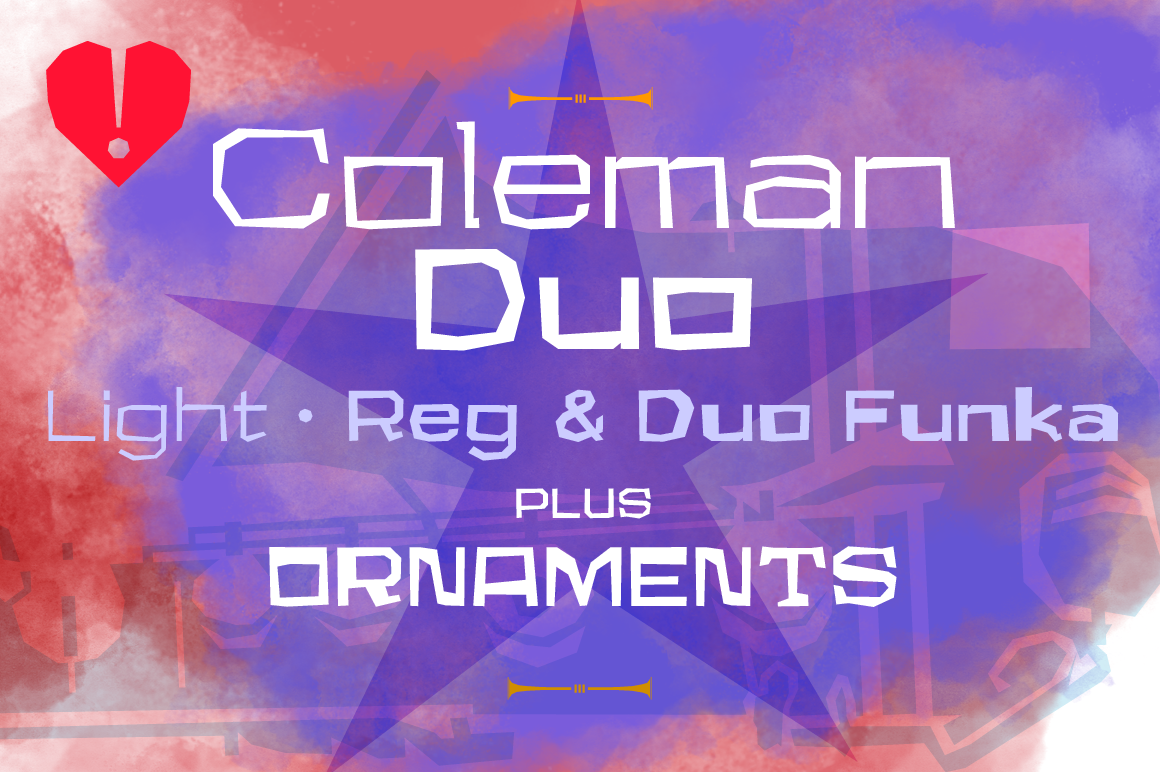
Coleman Duo Font Family
Coleman Duo is the other half of a jazz-inspired double take on one design concept, tailor made for album covers, posters, t-shirts, and collateral design. Carefully weighted, off-kiltered, and hand-kerned, Coleman Duo's offbeat nature is perfect for catching attention. Multilingual, accented, lively, and fun.
Coleman Duo features 357 glyphs per face, in three weights.
I had so much fun creating these that I just kept going – New Funka weights feature spontaneous character design variations.
Bonus: Coleman Ornaments included!
Coleman Duo includes: Coleman Duo Light, Coleman Duo Regular, and Coleman Duo Funka, plus Coleman Ornaments.